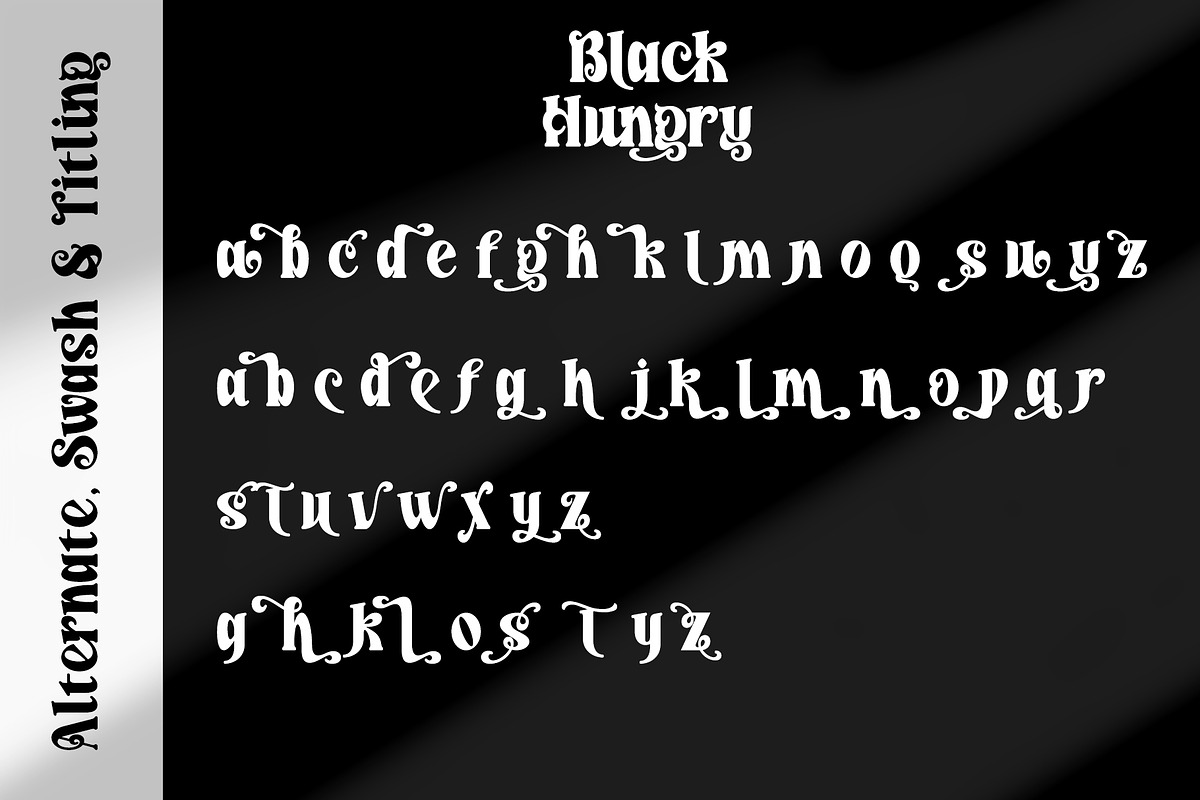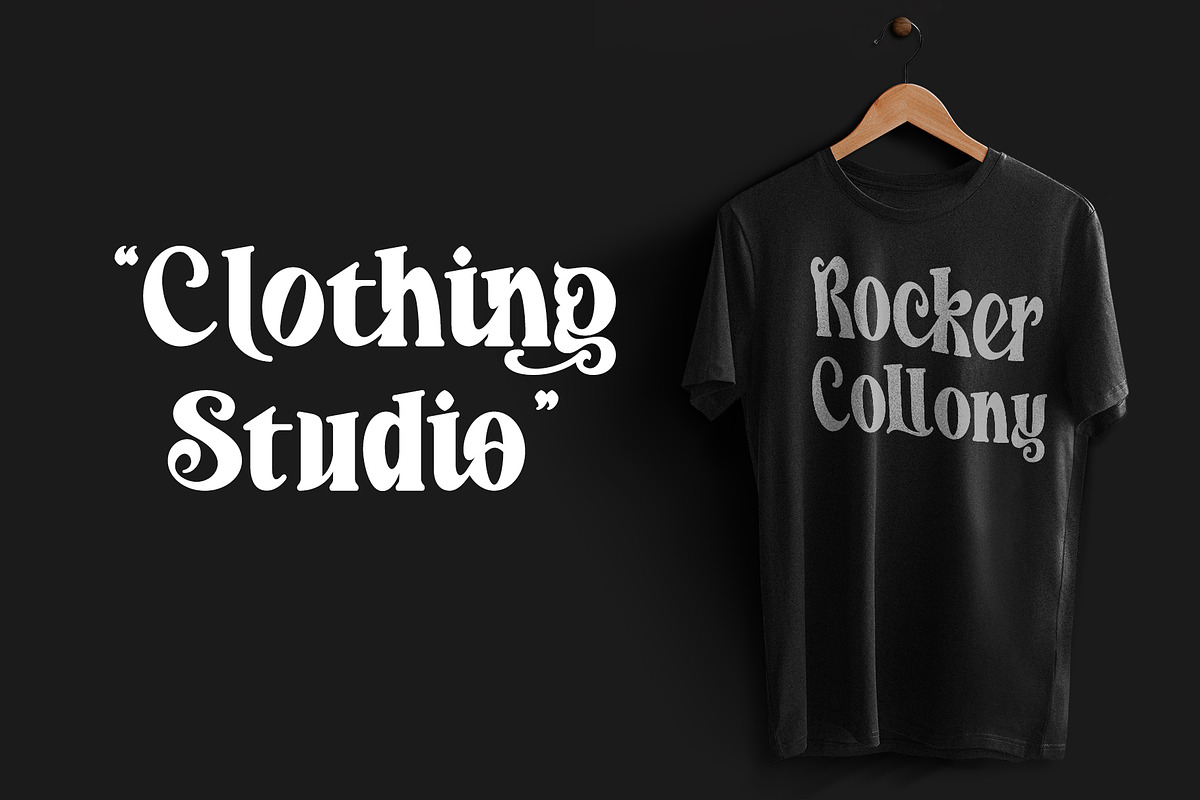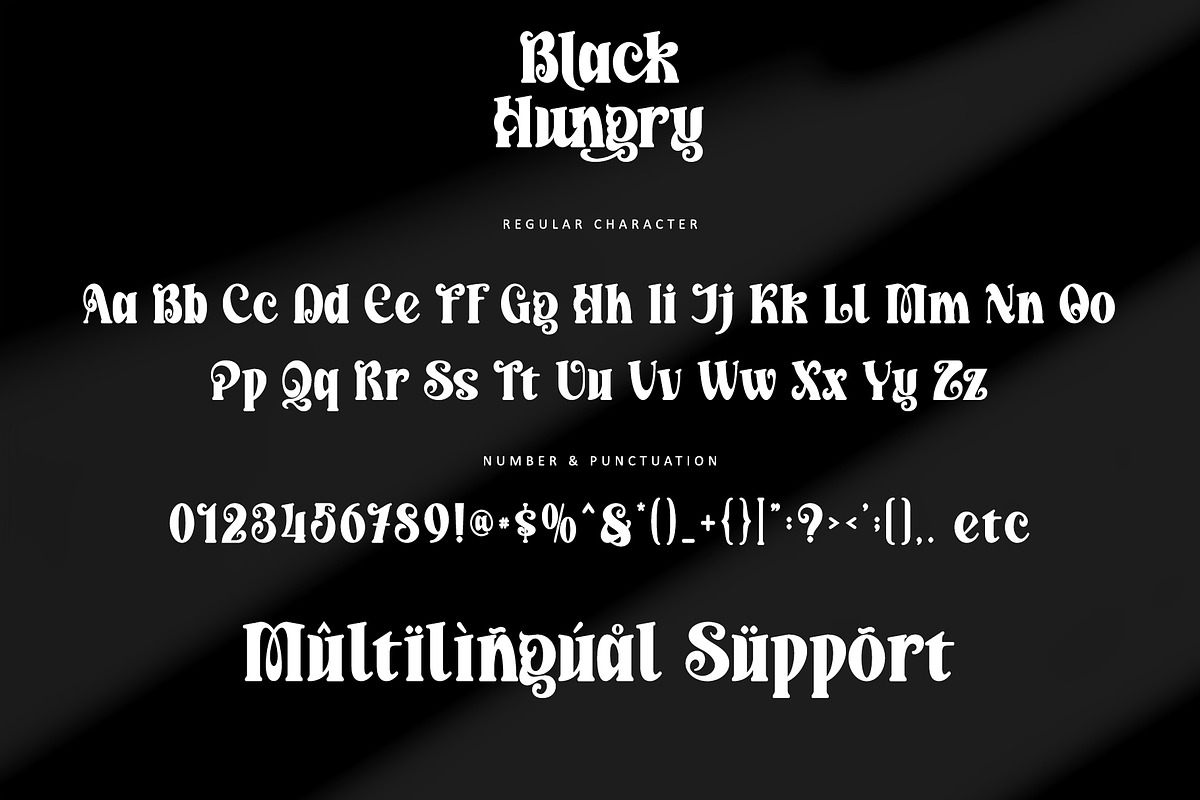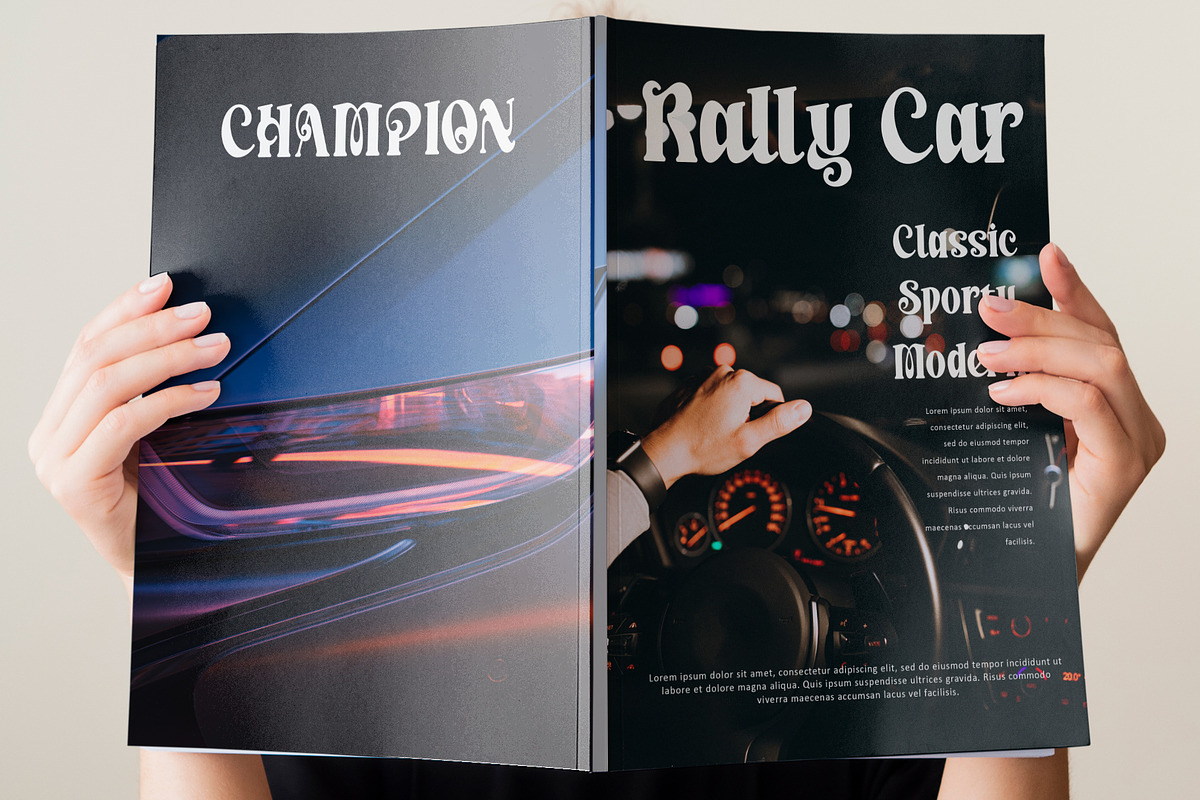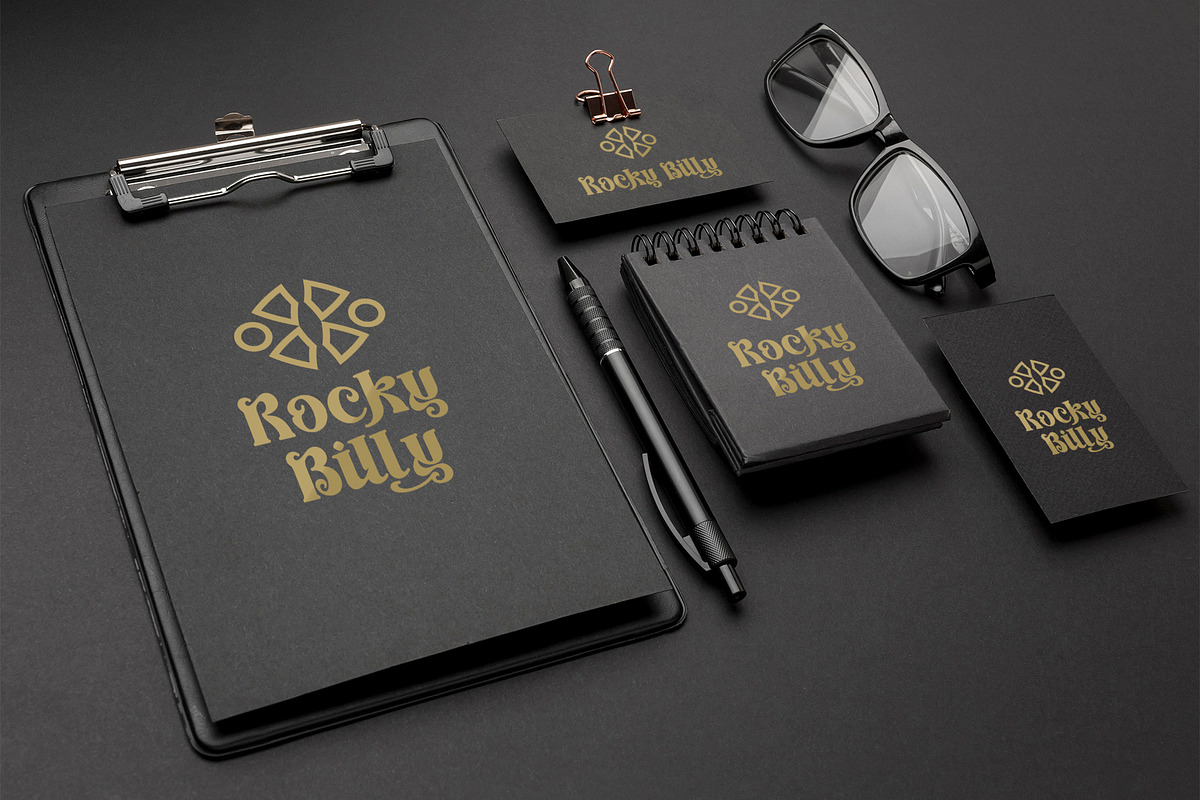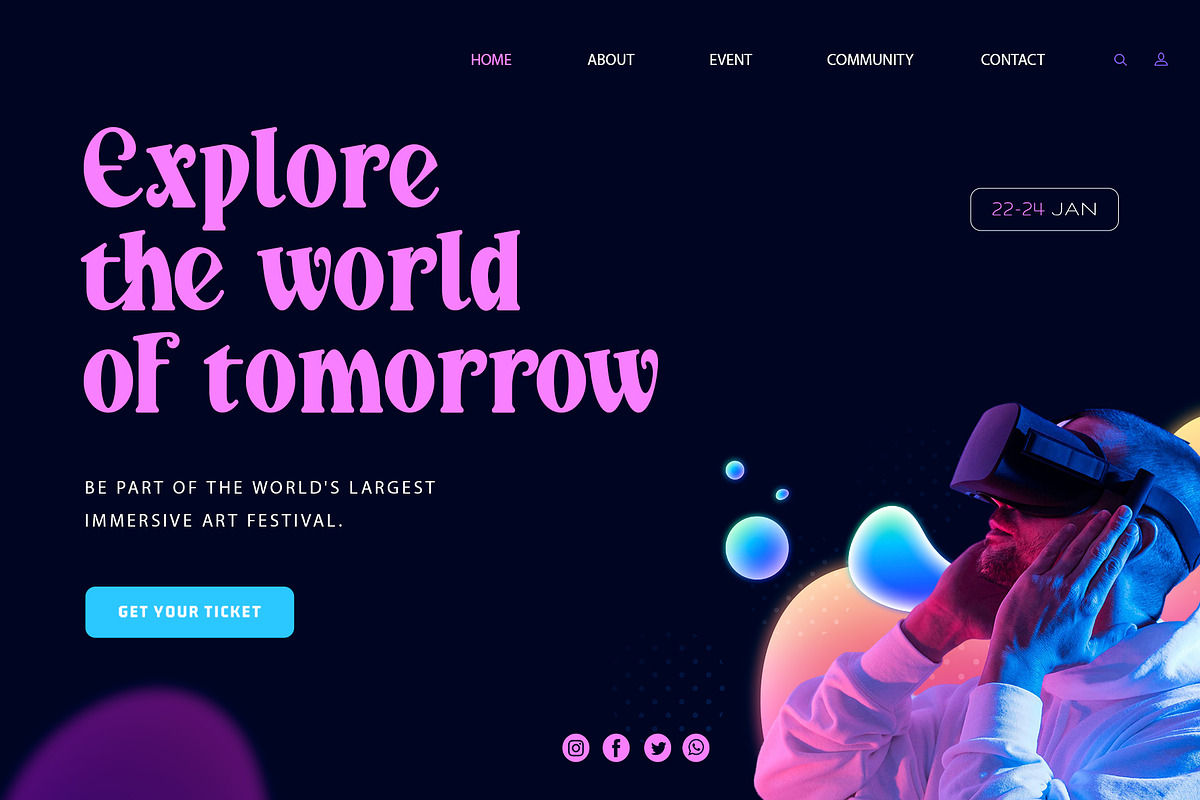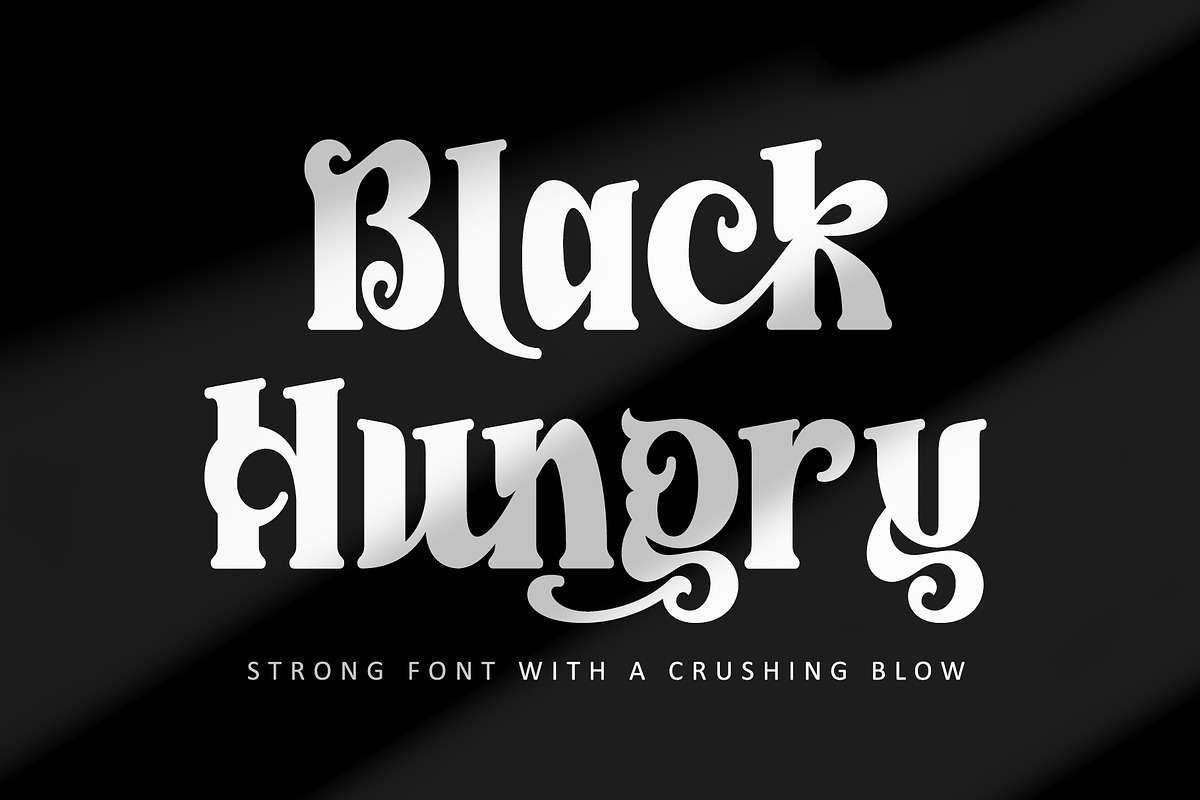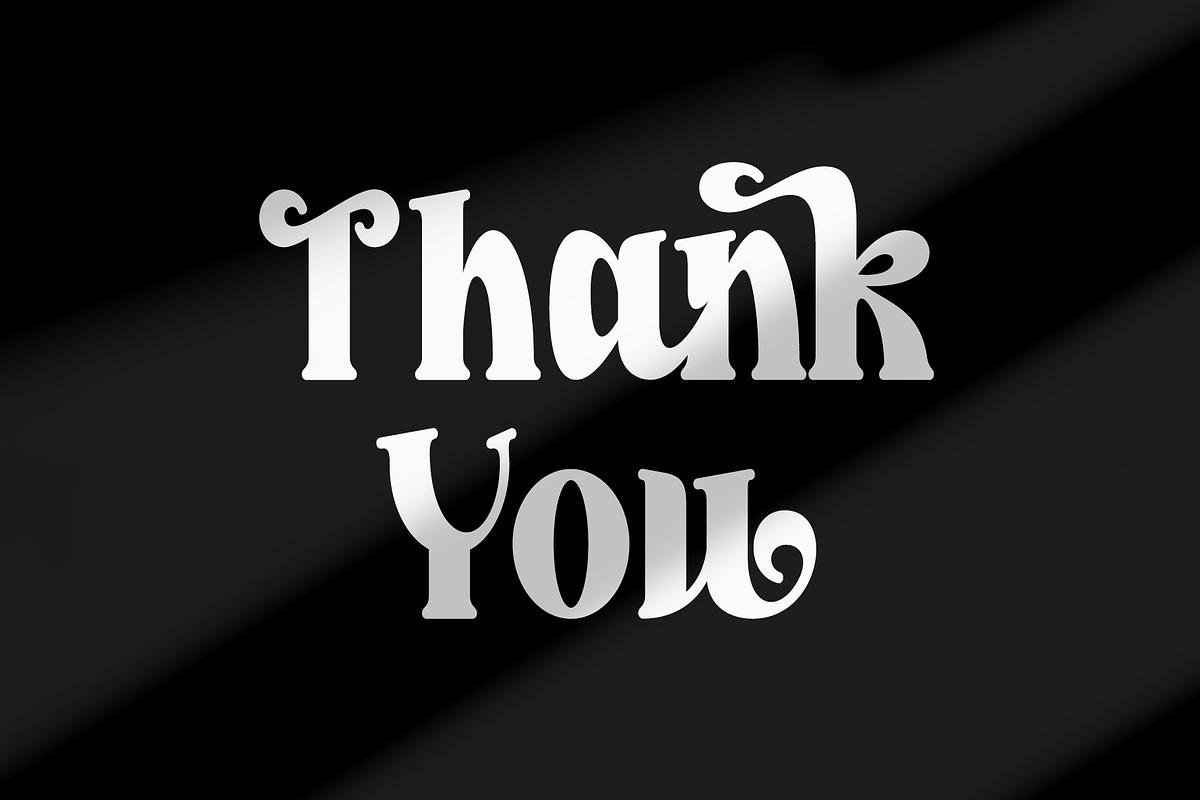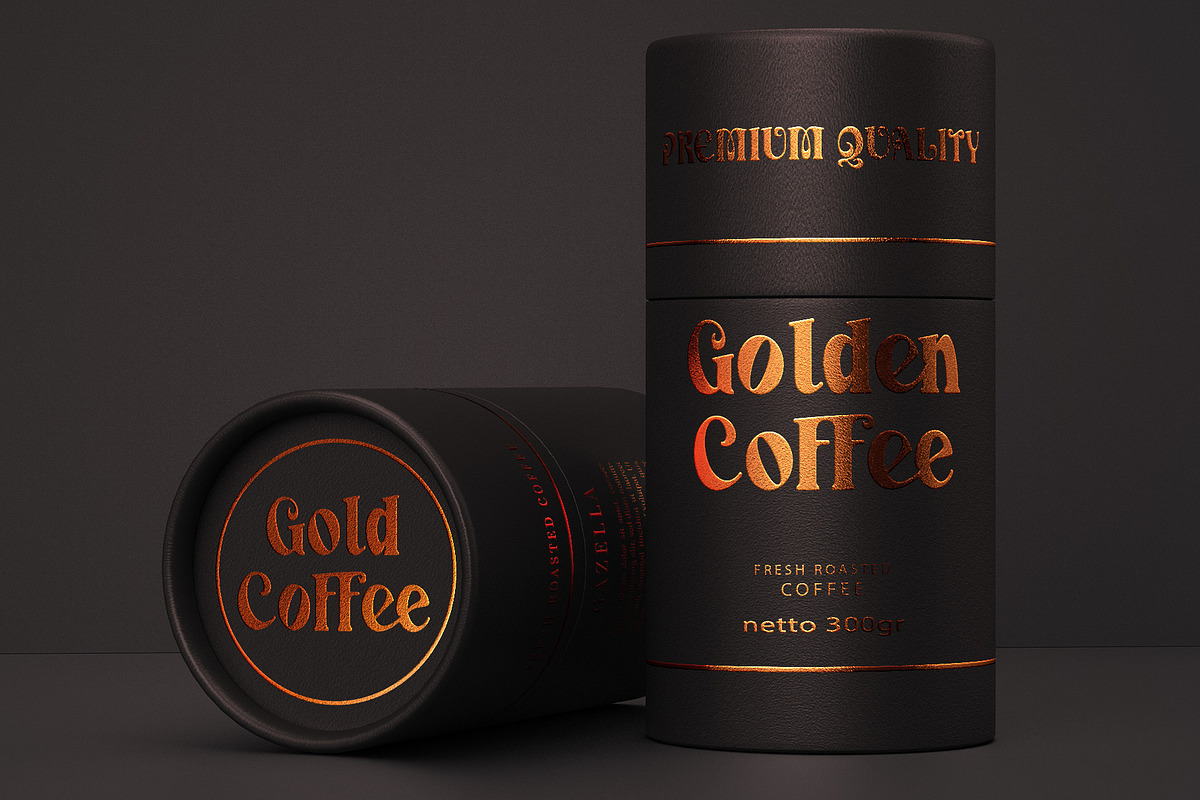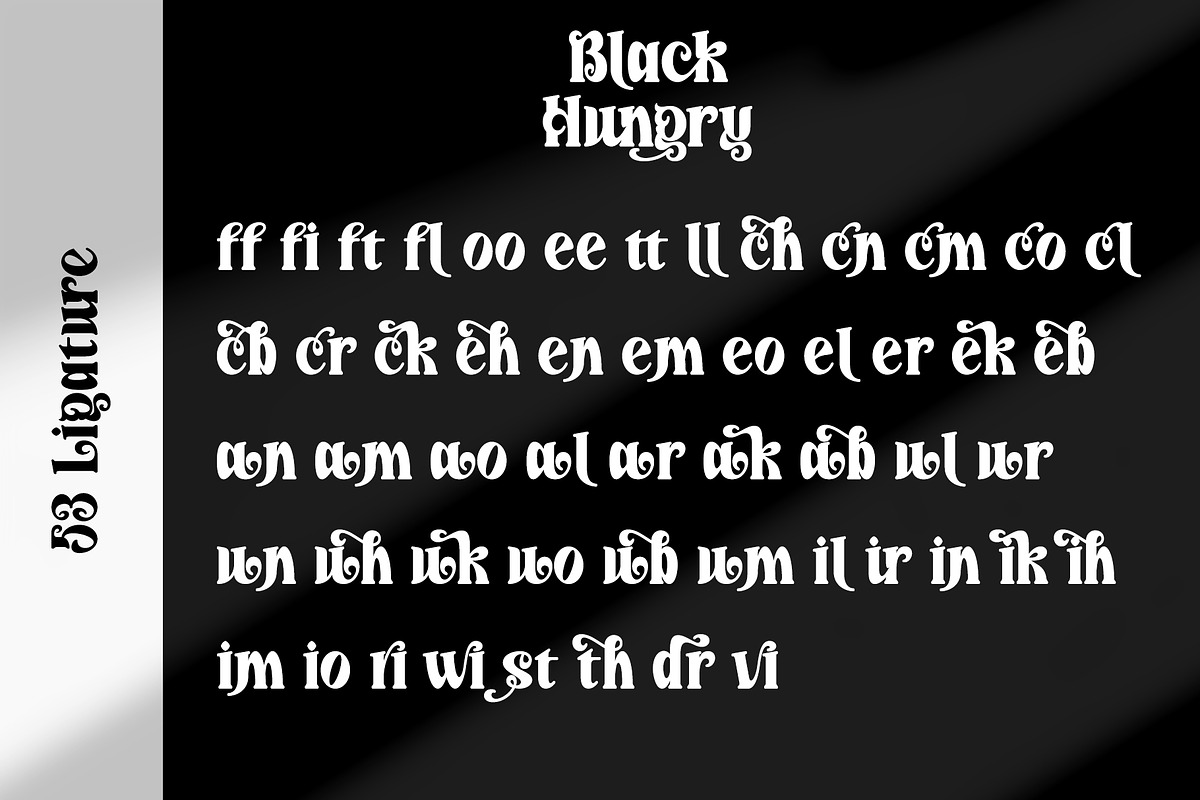
Black Hungry
Black Hungry is a modern serif font with a thick and solid style. Fall in love with its super stylish and powerful vibe and use it to create spectacular designs! This font is a suitable font for many projects, for modern or even retro vintage design, branding, logo, crafting, sticker, sublimation, classy editorial design, magazines, Packaging, poster, movie, promotions, and art galleries, and more. This font is PUA encoded, meaning you can access all of the glyphs.
Many Features:
- Support multilingual; ä ö ü Ä Ö Ü ß ¿ ¡
- lowercase and uppercase letters
- Alternate, Swash, Titling, & Ligature.